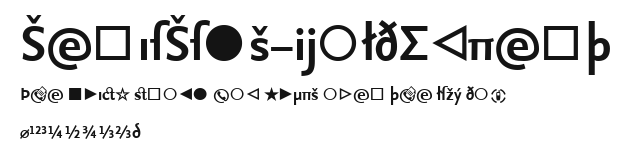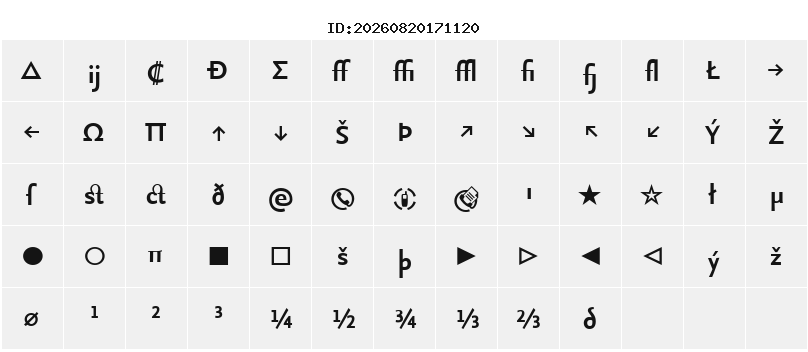
SeriaSans-BoldExpert Preview
• Font Name: SeriaSans-BoldExpert
• Full Font Name: SeriaSans-BoldExpert
• Character Count: 236
• Manufacturer: Martin Majoor, published by Fontshop International for the FontFont library
About SeriaSans-BoldExpert.ttf
SeriaSans-BoldExpert.ttf is a modern, elegant sans-serif font designed for ultimate readability and visual harmony. Perfect for branding, headlines, web design, and print materials.